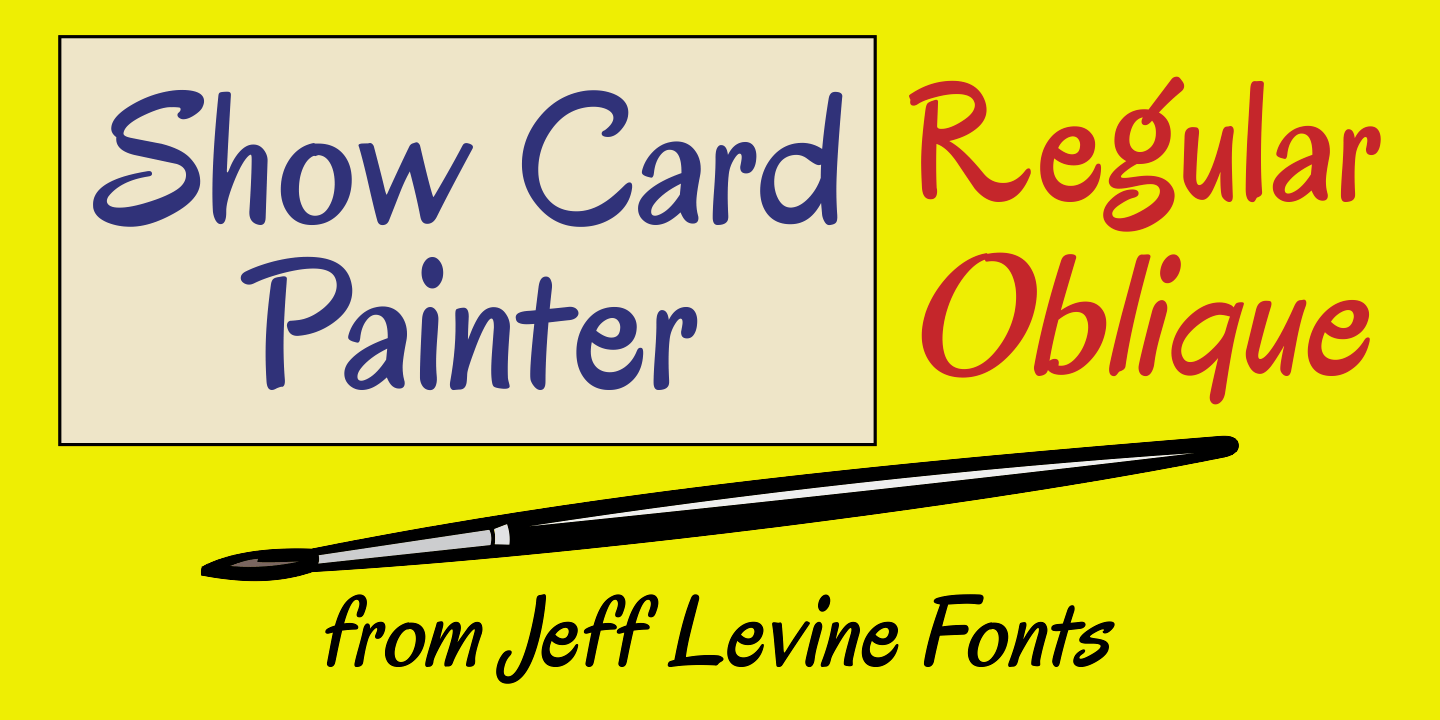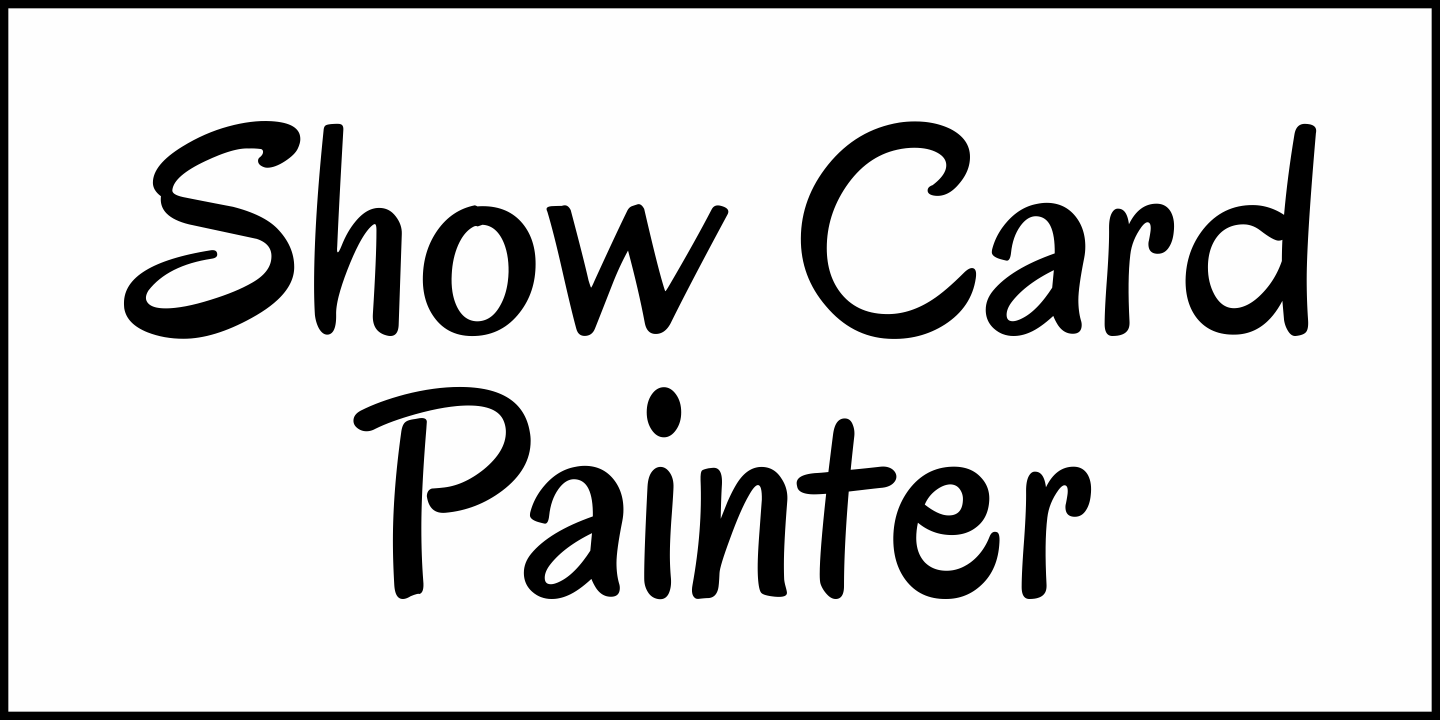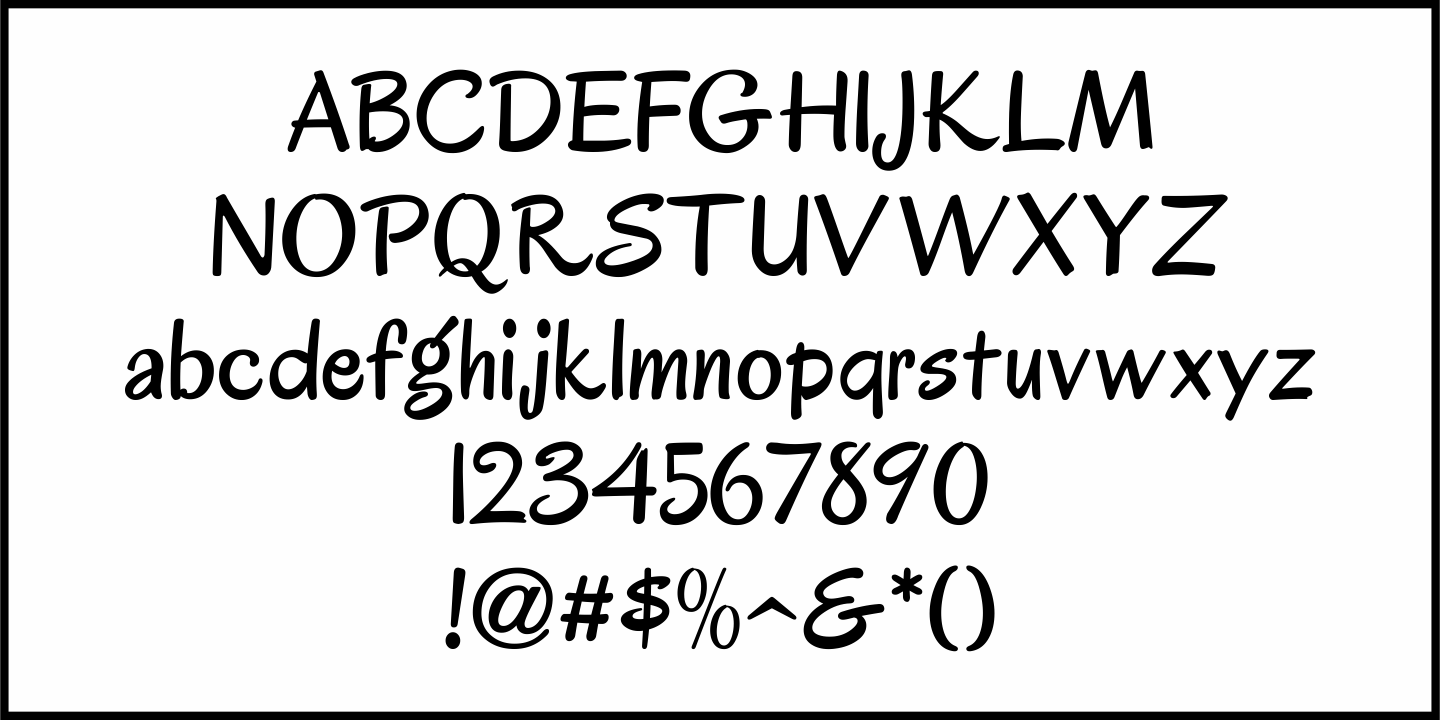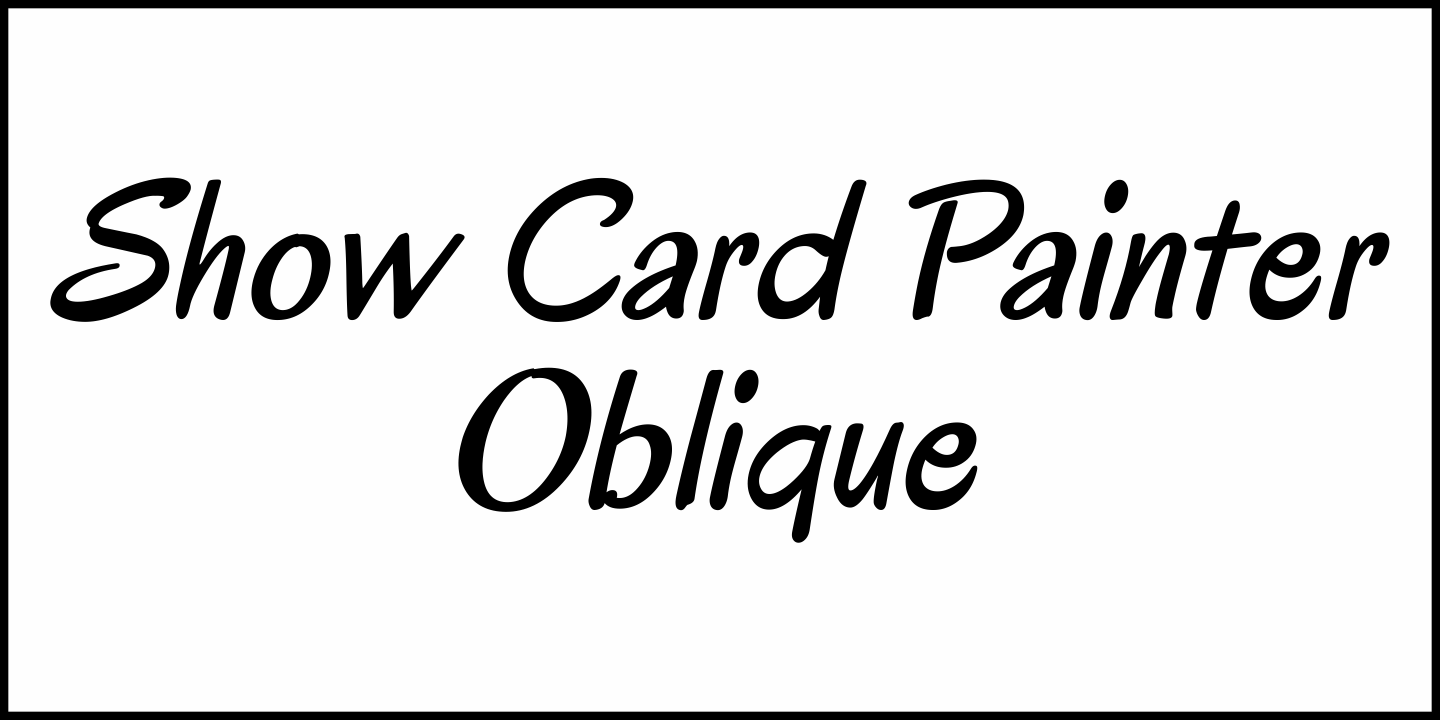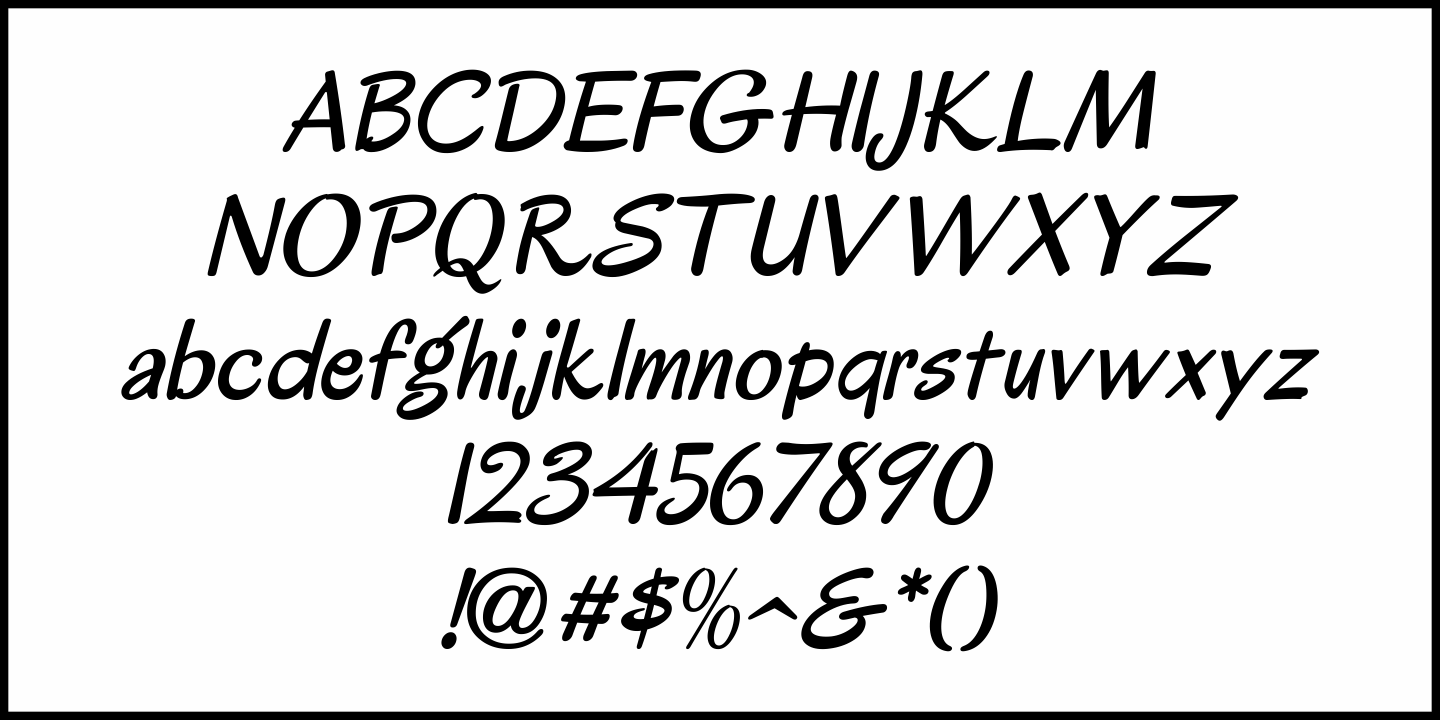
Show Card Painter
The 1949 book "Applied Lettering & Design" by Rand Holum showed a number of metal type faces as style examples. One in particular did not carry its original foundry name, but was referred to by Holum as "a novelty Roman cartoon face".
In actuality, it's a casual brush stroke design, often found in ads and in hand lettered show cards and signs.
This is now digitally available as Show Card Painter JNL, in both regular and oblique versions.